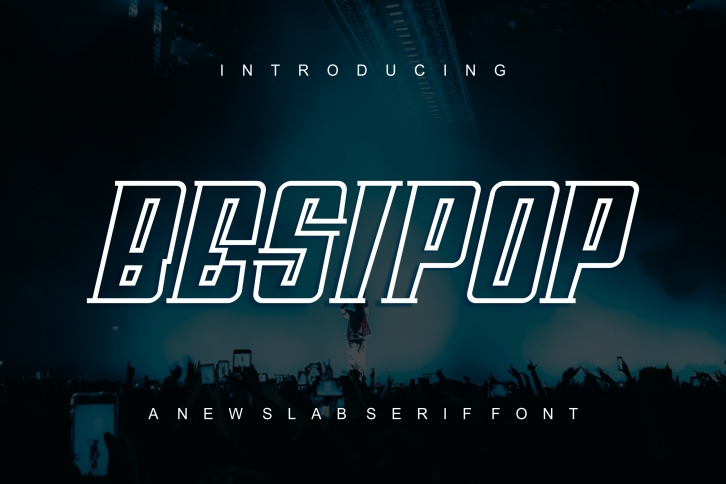
Besipop Font – Modern Font is a bold and authentic display font. The font is suitable for any branding project like logo, t-shirt printing, esport, and many more. outstanding in a wide range of contexts.
: Uppercase